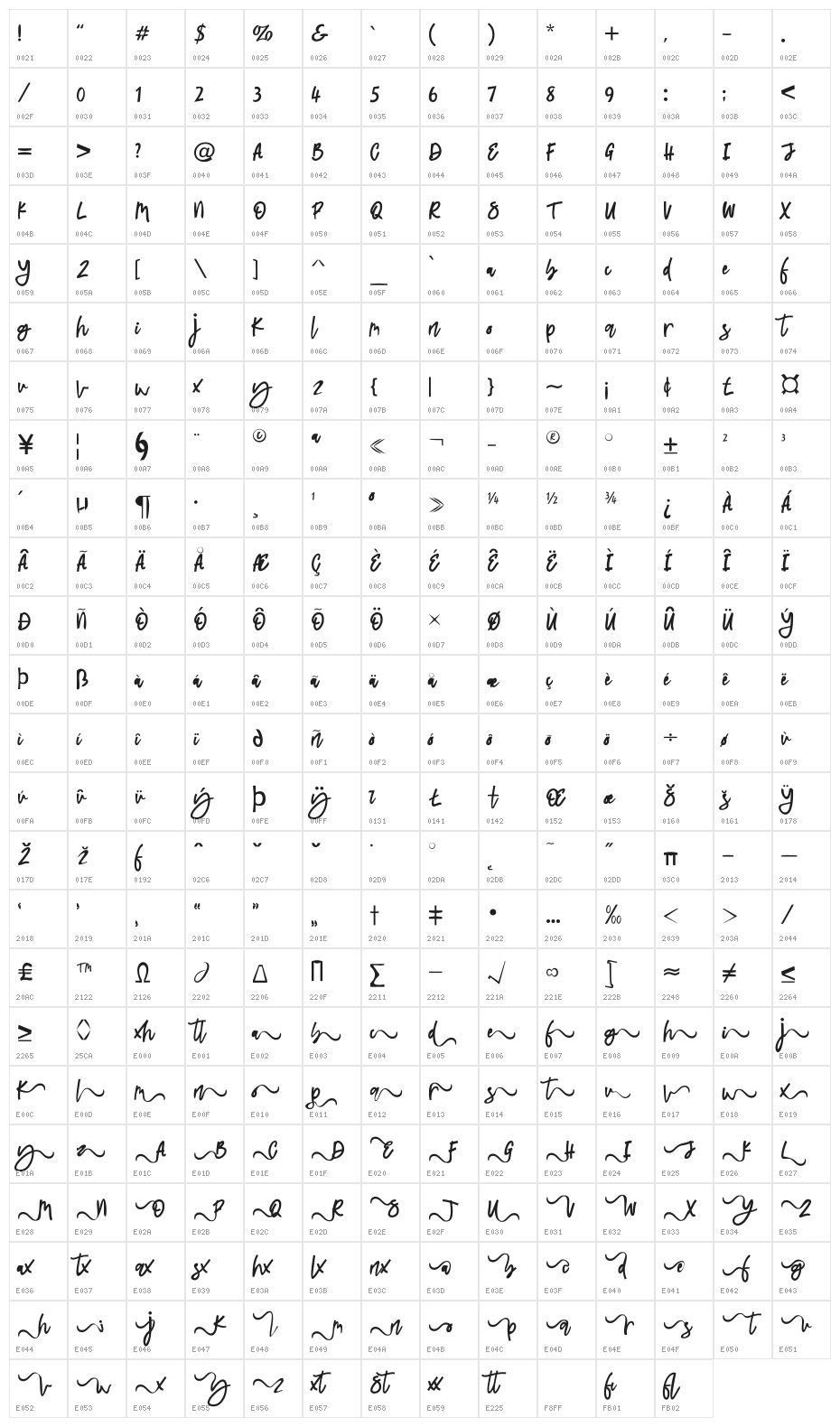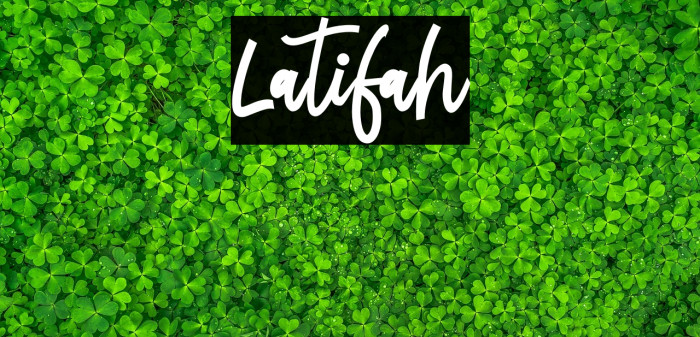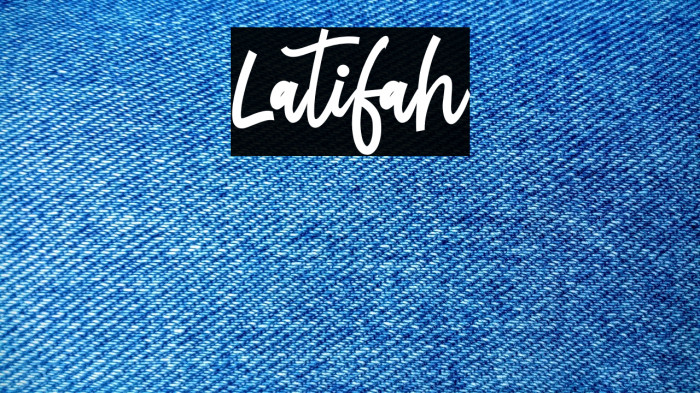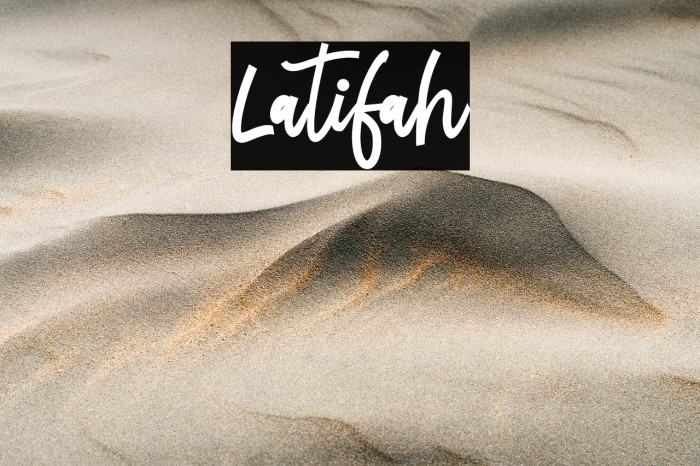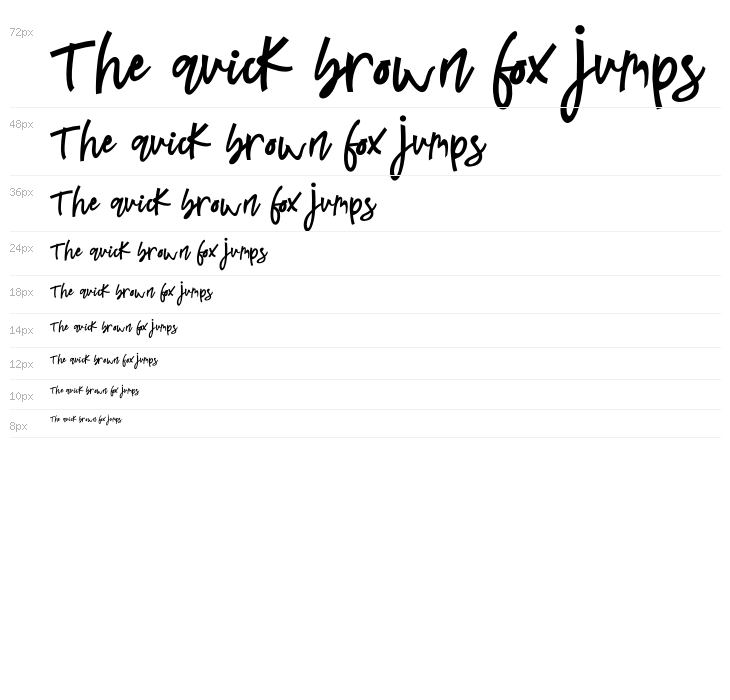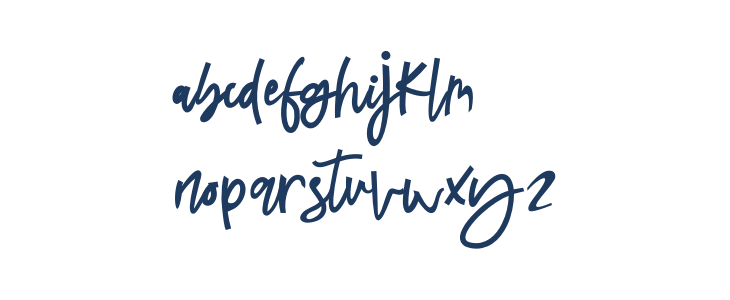
Latifah Font
Latifah Description
This font features a bold and expressive handwritten style, characterized by its fluid and dynamic strokes. The uppercase letters are slightly slanted, adding a sense of movement and energy, while the lowercase letters maintain a consistent flow that complements the overall design. The numerals are bold and clear, ensuring readability. Special characters are creatively integrated, maintaining the font's playful and artistic vibe. This font's unique style makes it suitable for projects that require a personal touch or a creative flair.
| Proposed Projects | Ideal for branding, invitations, social media graphics, and creative projects that require a personal touch. |